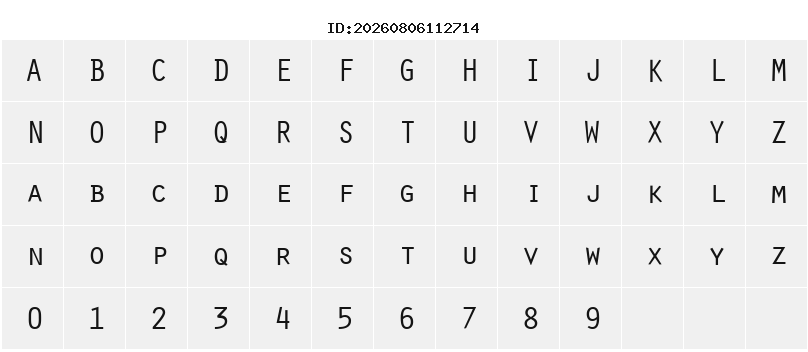
Orator Preview
About Orator.ttf
Orator.ttf is a modern, elegant sans-serif font designed for ultimate readability and visual harmony. Perfect for branding, headlines, web design, and print materials.